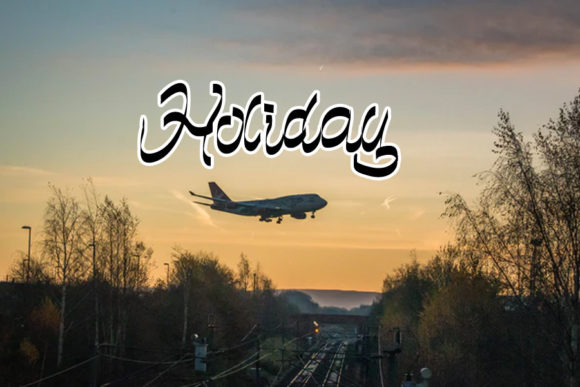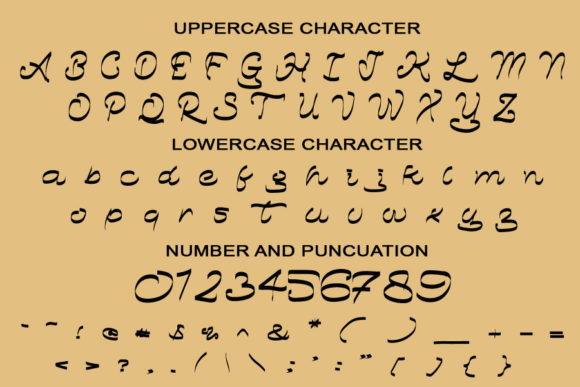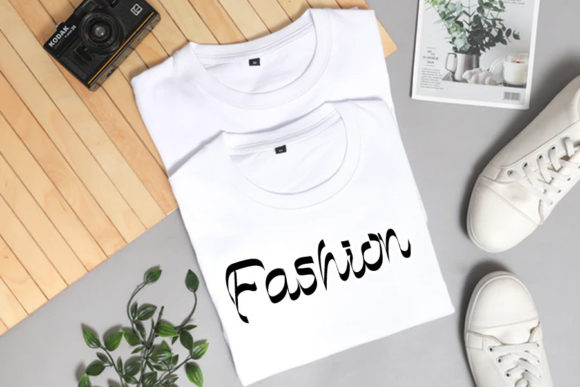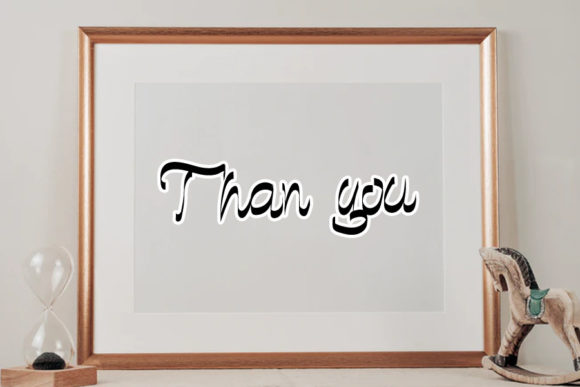
Introducing Backpacker Font: Elevate Your Designs with Elegance and Flair
Are you on the hunt for a font that adds a touch of sophistication and whimsy to your creative projects? Look no further than the Backpacker Font, a delicate, elegant, and flowing handwritten font that is sure to bring your designs to life. With its beautiful and well-balanced characters, Backpacker Font is an incredibly versatile typeface that can complement a wide range of design styles.
The Characteristics of Backpacker Font
Backpacker Font boasts a unique blend of elegance and playfulness, making it an ideal choice for designers and crafters looking to add a personal touch to their work. Here are some of the key characteristics that set this font apart:
- Delicate and Elegant: Backpacker Font features a delicate and elegant design, perfect for creating sophisticated and refined designs.
- Flowing Handwritten Style: The font’s flowing handwritten style gives it a personal and organic feel, making it perfect for adding a touch of warmth and personality to your designs.
- Well-Balanced Characters: Each character in the Backpacker Font is carefully crafted to ensure perfect balance and harmony, making it easy to read and visually appealing.
- Versatile: Backpacker Font can be used for a wide range of design projects, from branding and packaging to invitations and digital media.
Why Choose Backpacker Font?
So, why should you choose Backpacker Font for your next design project? Here are just a few reasons why this font stands out from the crowd:
- Unique and Eye-Catching: Backpacker Font is a unique and eye-catching typeface that is sure to grab attention and leave a lasting impression.
- Easy to Read: Despite its elegant and flowing design, Backpacker Font is incredibly easy to read, making it perfect for body text and longer design projects.
- Customizable: Backpacker Font can be easily customized to fit your design needs, allowing you to experiment with different colors, sizes, and styles.
- High-Quality: Backpacker Font is a high-quality typeface that is designed to deliver exceptional results, whether you’re working on a digital project or a print design.
How to Use Backpacker Font in Your Designs
Ready to add Backpacker Font to your design toolkit? Here are a few ideas for how you can use this beautiful font in your next project:
- Branding and Packaging: Use Backpacker Font to create elegant and sophisticated branding and packaging designs that stand out on store shelves.
- Invitations and Stationery: Add a touch of whimsy and elegance to your invitations and stationery with Backpacker Font.
- Digital Media: Use Backpacker Font to create eye-catching and engaging digital media, such as social media graphics and blog posts.
- Crafting and Scrapbooking: Backpacker Font is also perfect for crafters and scrapbookers looking to add a personal touch to their projects.
In conclusion, Backpacker Font is a beautiful and versatile typeface that is sure to elevate your designs and bring your creative ideas to life. With its delicate and elegant design, flowing handwritten style, and well-balanced characters, Backpacker Font is an excellent choice for designers and crafters looking to add a touch of sophistication and whimsy to their work. So why wait? Download Backpacker Font today and start creating stunning designs that stand out from the crowd!